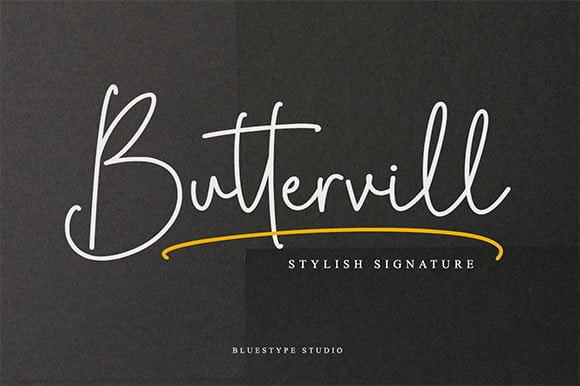
Buttervill Font
Buttervill is modern feminine font, every single letters have been carefully crafted to make your text looks beautiful.
With modern script style this font will perfect for many different project ex: logo, photography, watermark, quotes, blog header, poster, wedding, branding, logo, fashion, apparel, letter, invitation, stationery, etc.